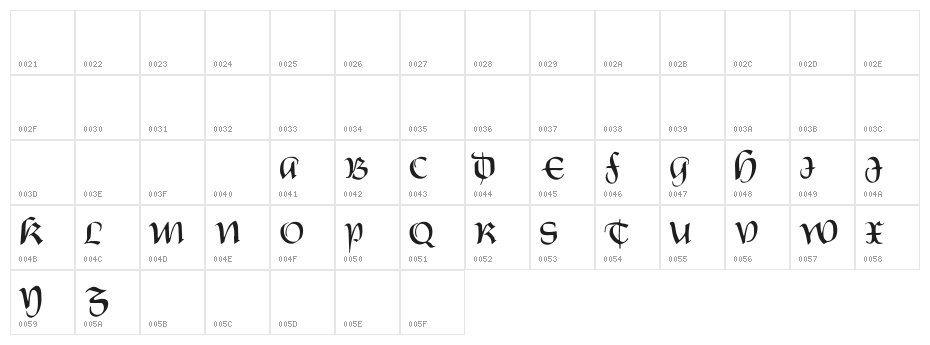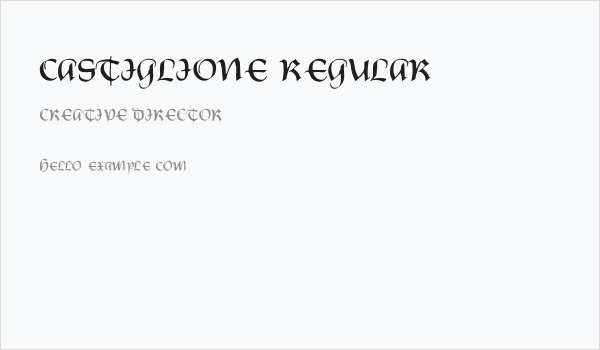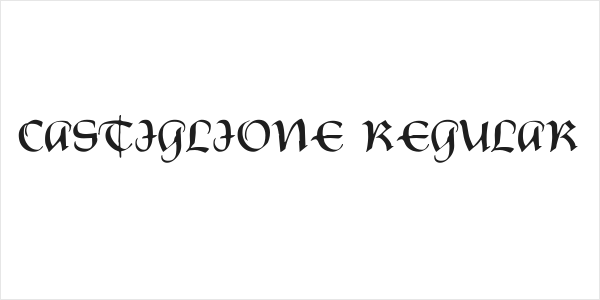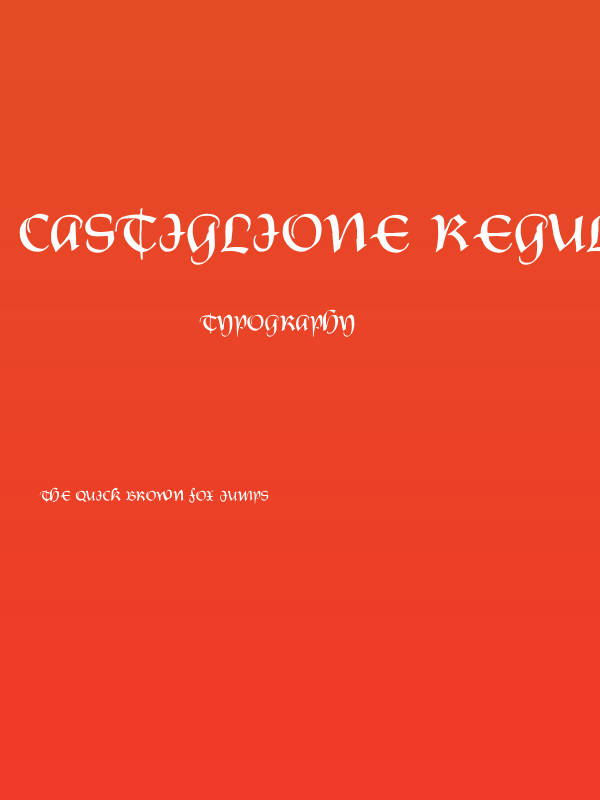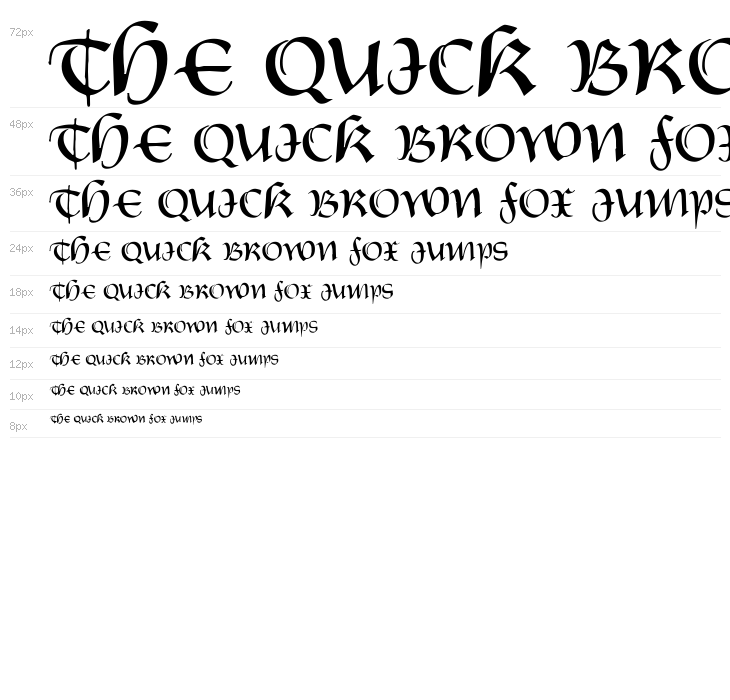
Castiglione Regular Font
Castiglione Regular Description
This font features a distinctive blackletter style, characterized by its ornate and intricate letterforms. The strokes are bold and angular, with sharp edges and pointed terminals that evoke a sense of historical elegance. The uppercase letters are particularly elaborate, with flourishes and decorative elements that enhance their visual impact. The lowercase letters maintain a consistent style, offering a cohesive look across the alphabet. This font's unique design is reminiscent of medieval manuscripts, making it ideal for projects that require a touch of vintage sophistication.
| Proposed Projects | Suitable for historical documents, vintage-themed designs, book covers, and event invitations. |